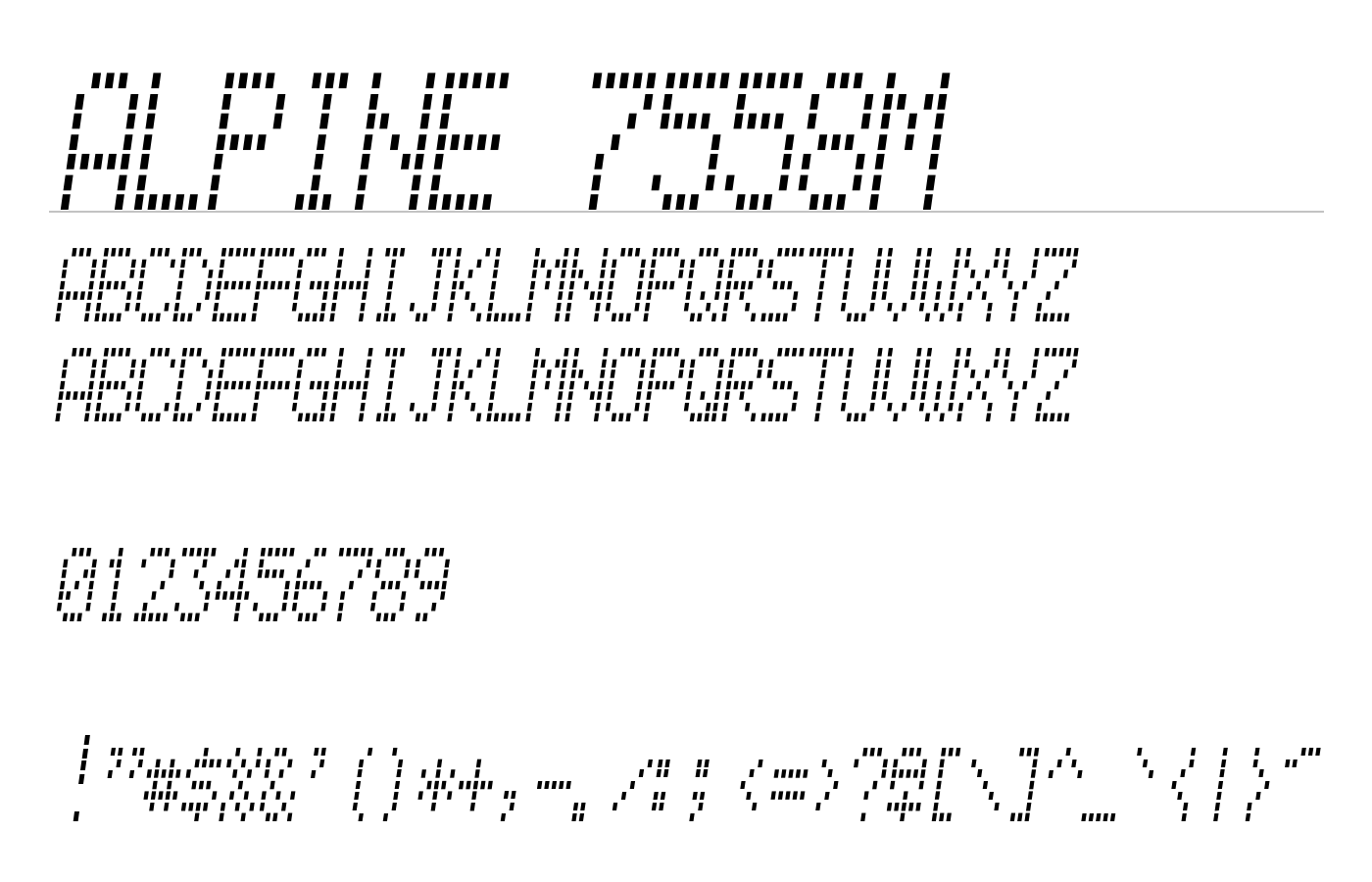
Alpine 7558M is a modern, geometric sans serif font with a distinctive digital or pixelated look, characterized by its dotted, dashed stroke construction and narrow, condensed width. Its slanted, italic style combined with a medium x-height and uniform stroke weight gives it a dynamic, technical feel, making it ideal for futuristic branding, tech-inspired designs, or digital displays. This font works well for headlines, logos, and display uses where a striking, high-tech personality is desired.
Alpine 7558M Font